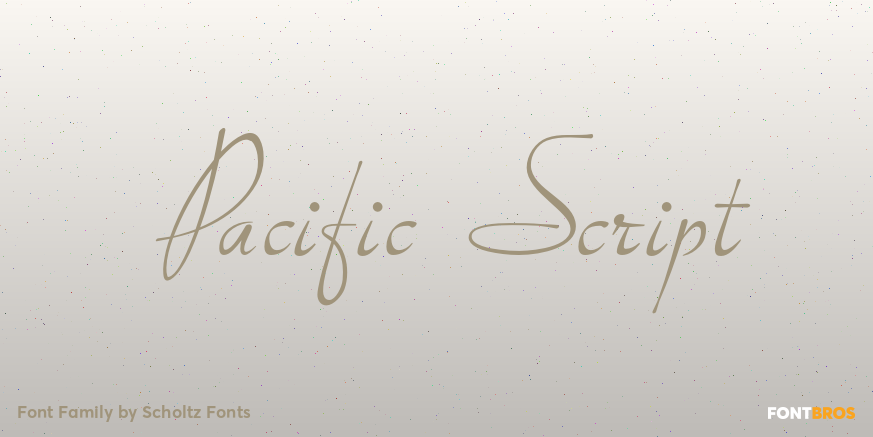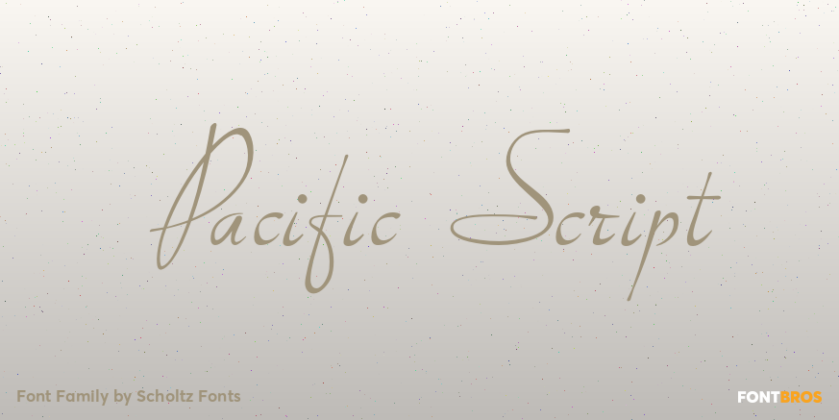
Pacific Script
About Pacific Script
Pacific Script is a font inspired by an alphabet created by Howard Trafton in the 1930s. However, I felt it needed some changes to bring it to the cutting edge of 21st century font design. Though designed as a display font, it works very successfully…